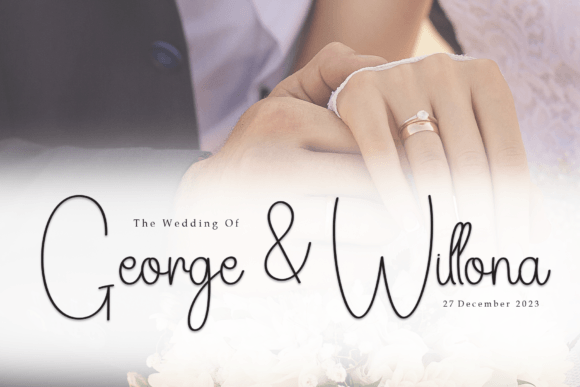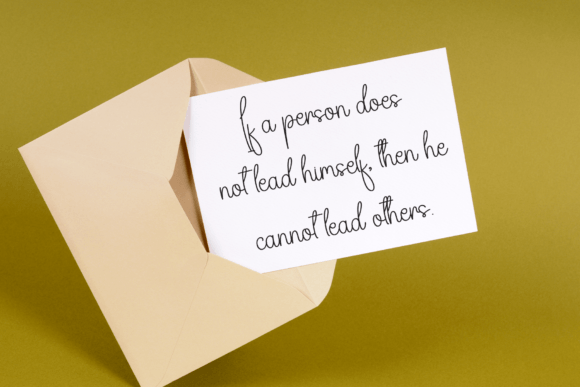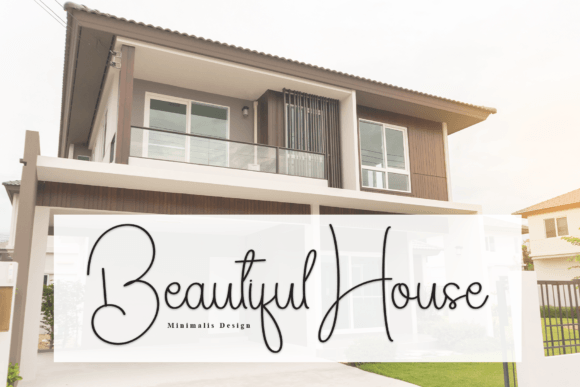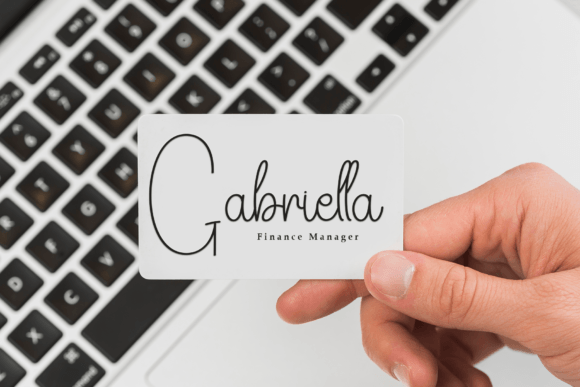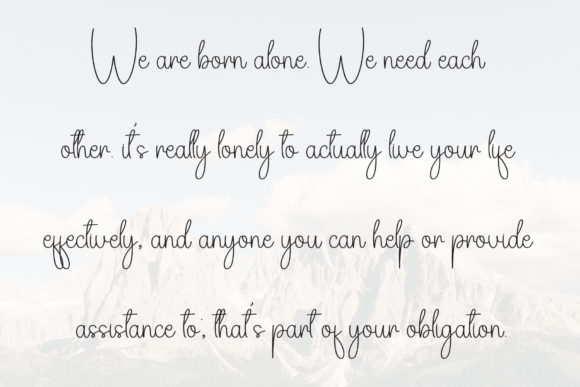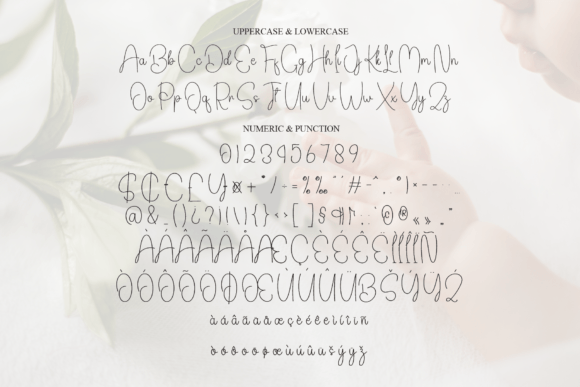
The Perfect Script for Little Miracles: Unveiling Baby Signature Font
Have you ever sat down with a blank sheet of paper, a pen, and a precious little one by your side, watching as they scribble out their first attempts at writing? The joy and innocence in those early marks is truly infectious, and it’s this same feeling that the Baby Signature Font captures so beautifully. This delightful handwritten font is designed to add a touch of whimsy and warmth to any project, making it the perfect choice for baby announcements, playful designs, and more.
For designers, the Baby Signature Font is a valuable tool for bringing a sense of joy and spontaneity to typography. Its charming strokes and delightful curves make it an ideal choice for projects that require a personal and heartwarming touch. Whether you’re working on a baby-themed design or simply want to add a little whimsy to your next project, the Baby Signature Font is sure to bring a smile to your face and a touch of magic to your creations.
Baby Signature Font Key Features
- Unique Characteristics: The font features a unique, hand-drawn style with a mix of playful and elegant elements, perfect for creating a personal and distinctive look.
Designer Review: Baby Signature Font
I recently had the chance to work with the Baby Signature Font, and here’s my honest take on it.
- Whimsical feel: This font is perfect for creating a playful, childlike atmosphere in any design project.
- Customization options: The font comes with a range of alternate characters and ligatures, allowing for a high degree of customization.
- Scalability: The font looks great at both large and small sizes, making it suitable for a variety of design applications.
- Limited legibility at very small sizes: While the font is generally easy to read, it can become quite difficult to decipher at very small sizes.
- Lack of robustness: The font’s whimsical nature can make it feel a bit flimsy or untrustworthy in certain contexts.
- Not ideal for formal designs: The font’s playful feel may not be suitable for formal or professional design projects.
The Baby Signature Font is a charming addition to any designer’s toolkit. While it may not be suitable for every project, it’s perfect for creating a lighthearted, childlike atmosphere. With a bit of caution regarding its limitations, this font can add a touch of whimsy to your designs.
Tips for Getting the Most Out of the Baby Signature Font
Use the Baby Signature Font to create a unique and personalized design for your baby’s signature, birth announcements, or other related graphics. Experiment with different font sizes, colors, and combinations to create a look that is both stylish and meaningful.
The Baby Signature Font is perfect for creating a variety of baby-related designs, including: